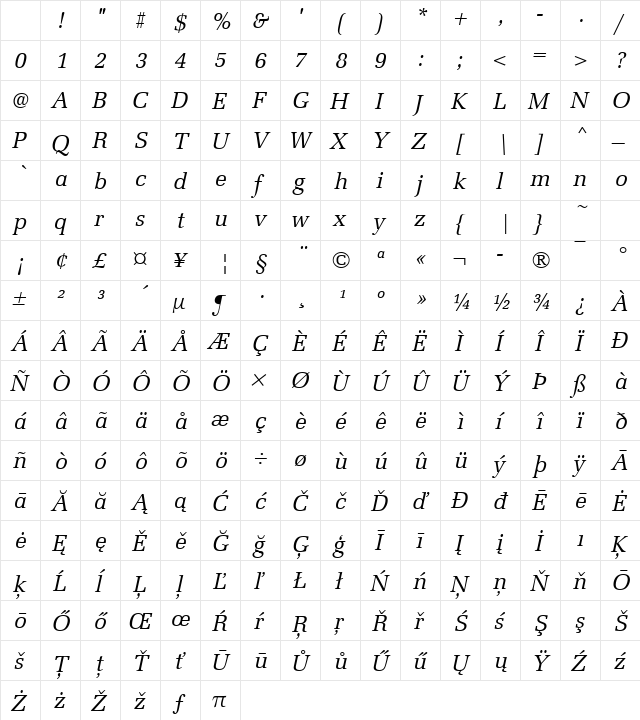
URWLatinoT is a composed and adaptable typeface that performs quietly and consistently across a wide range of design contexts. The slanted form adds forward momentum and visual energy.